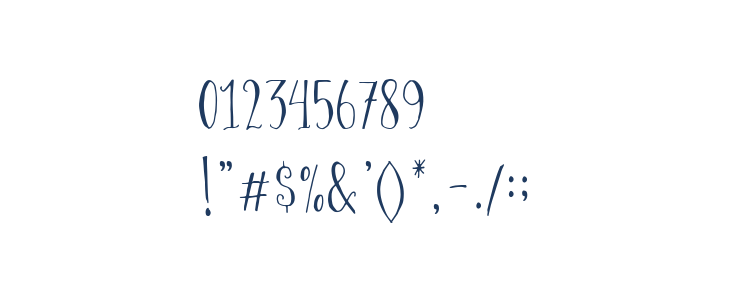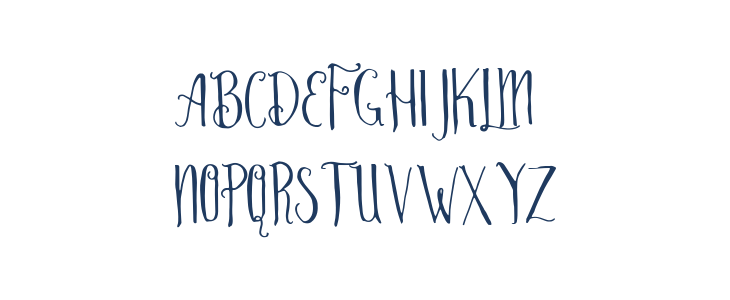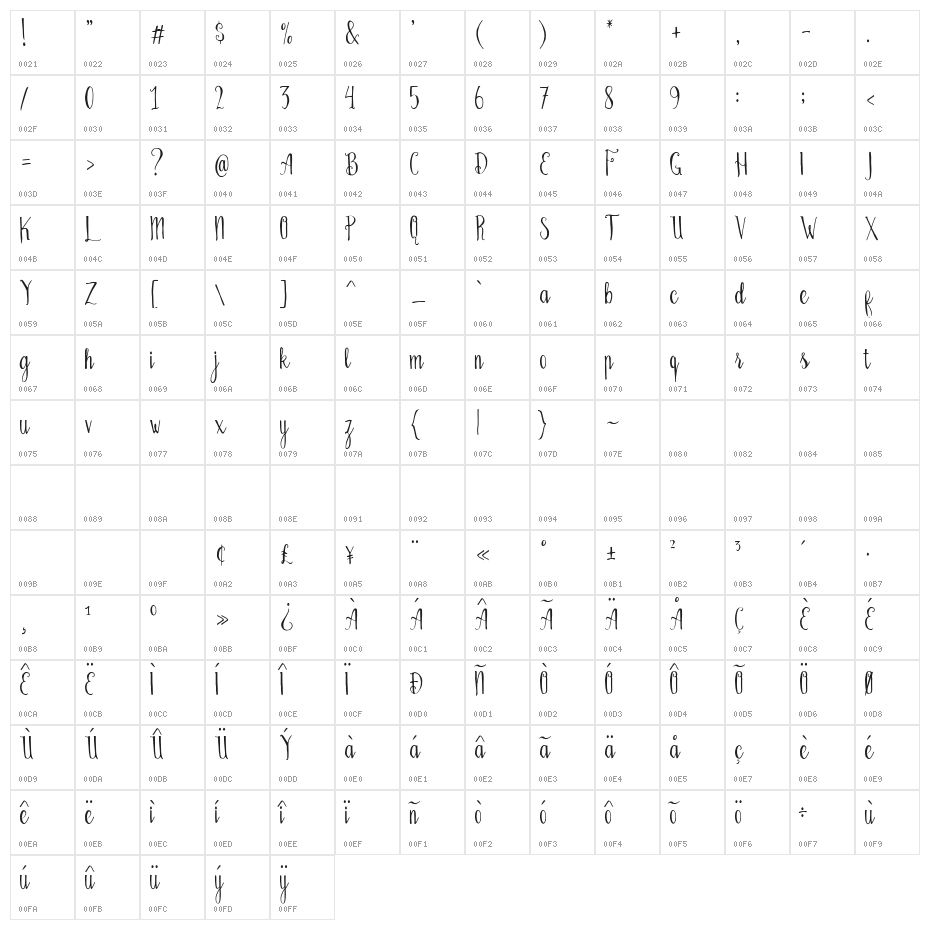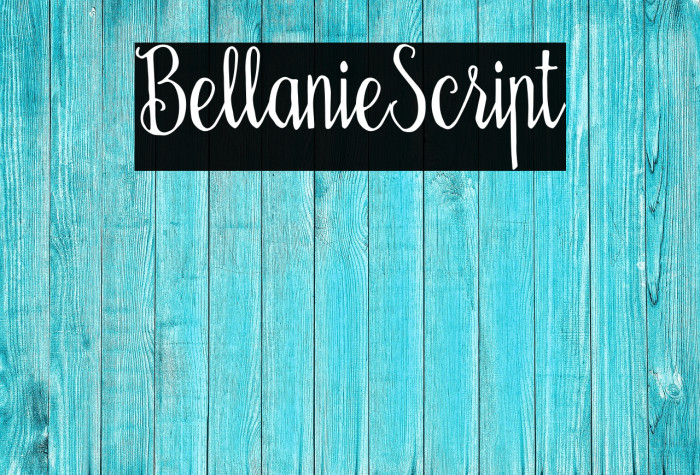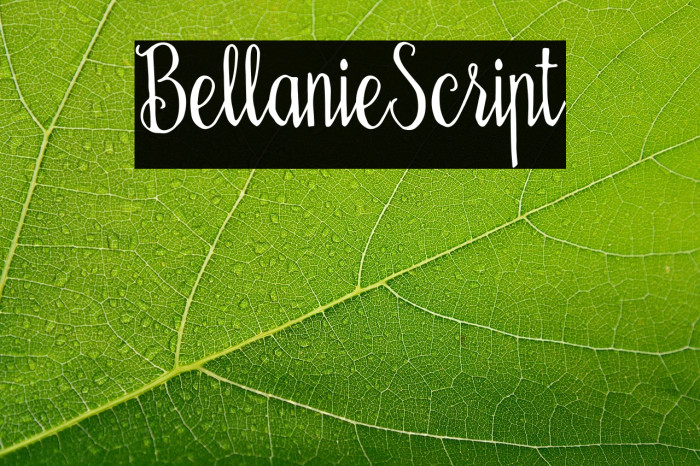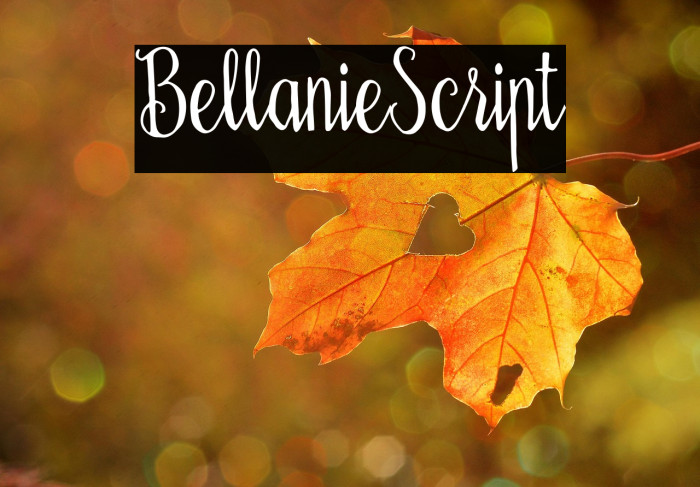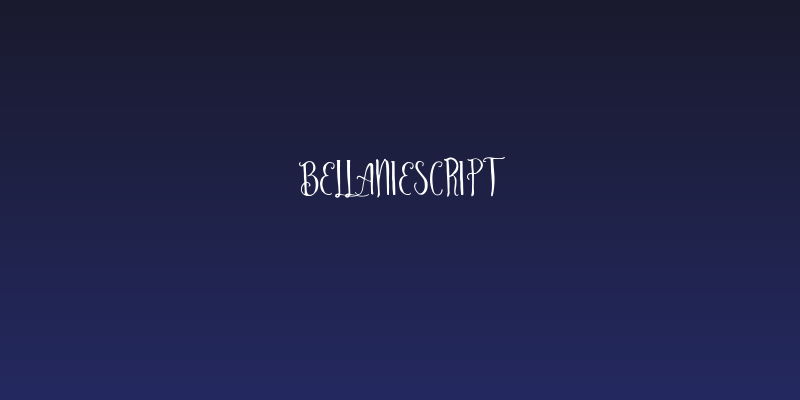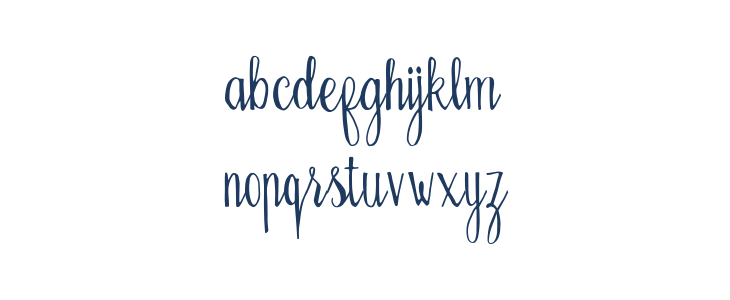
BellanieScript Font
BellanieScript Description
A playful, handwritten script font with tall, narrow letterforms and whimsical flourishes, featuring variable stroke thickness and a casual, organic feel.
| Width | Condensed |
| Overall Style | Decorative, Playful, Casual |
| Use Case | Logos, Headlines, Invitations, Decorative text |
| Proposed Projects | Invitations, greeting cards, branding, quotes, social media graphics, posters. |